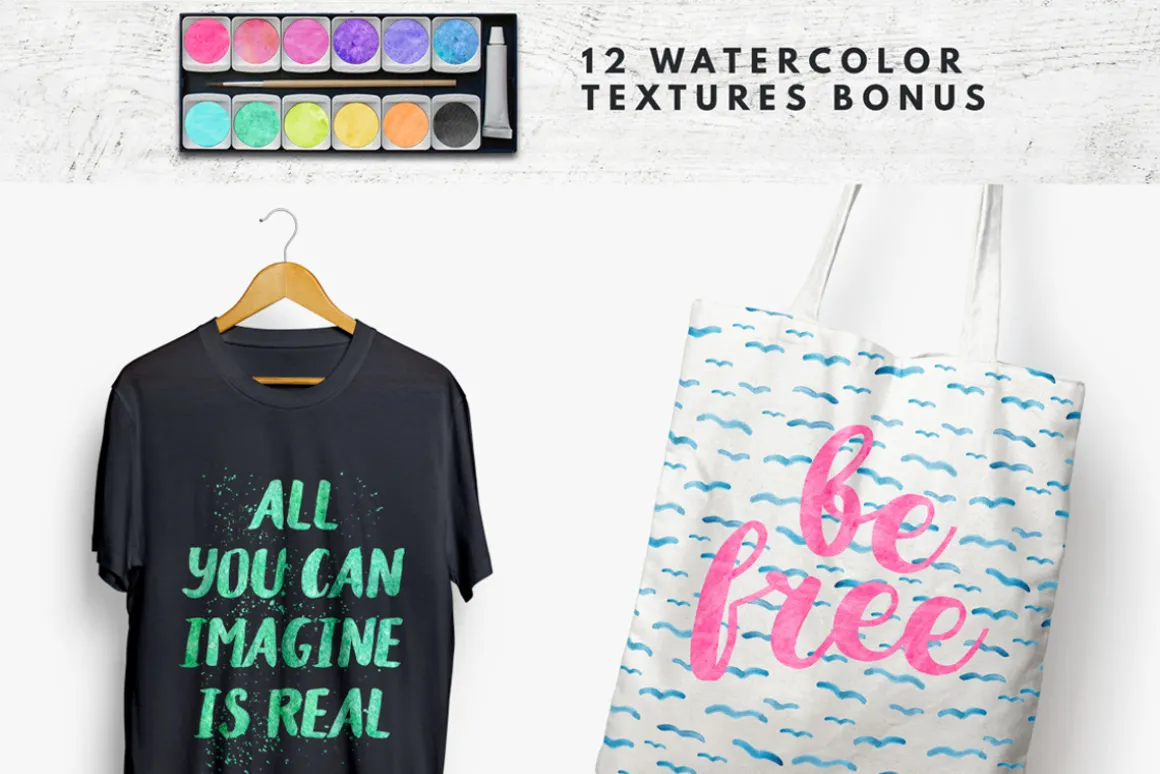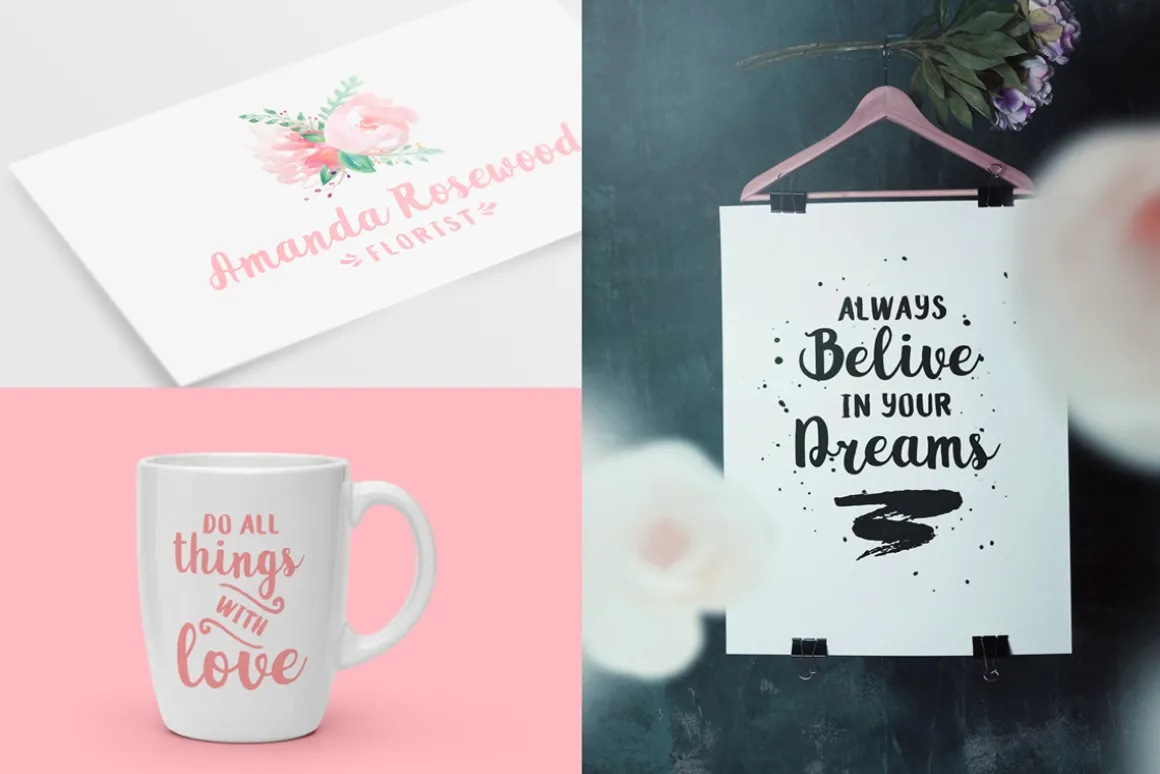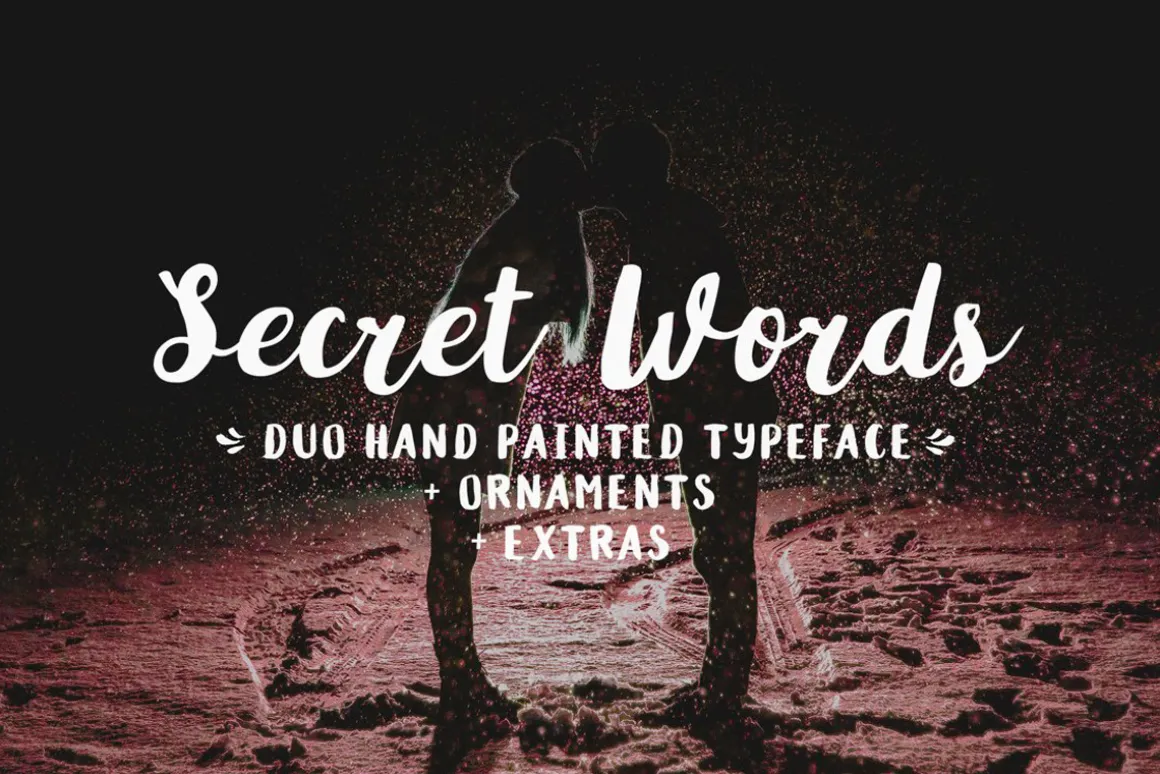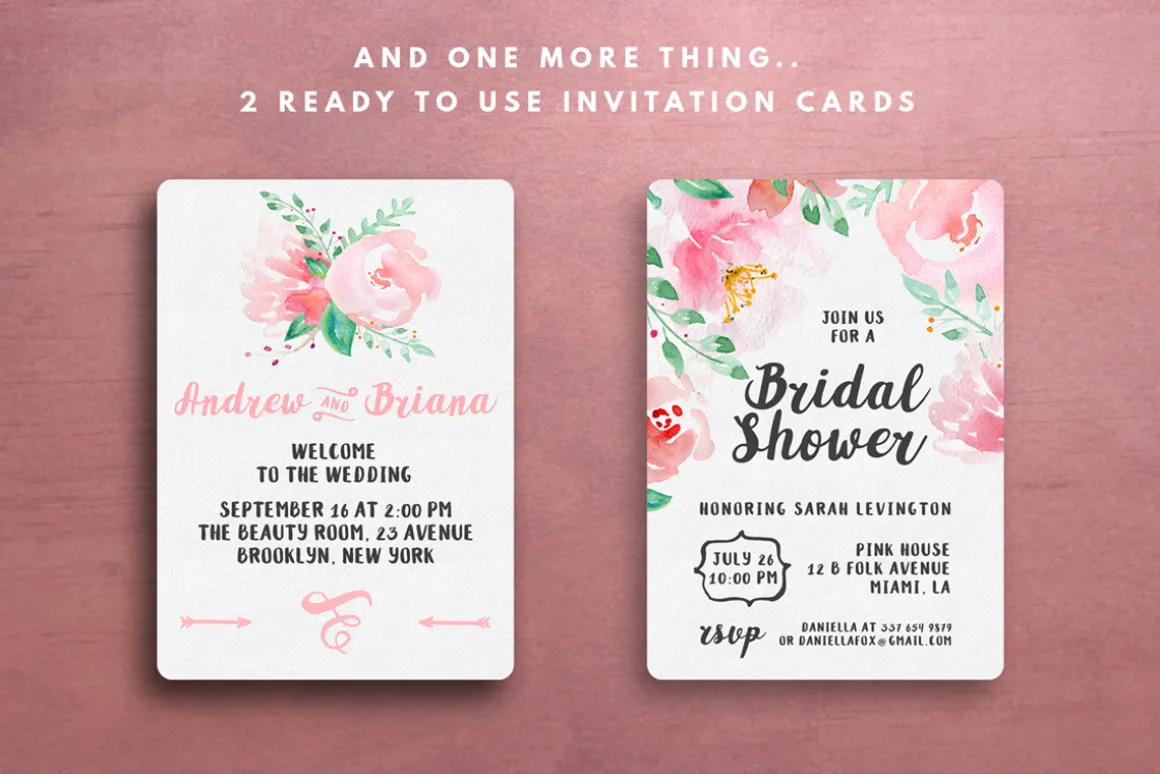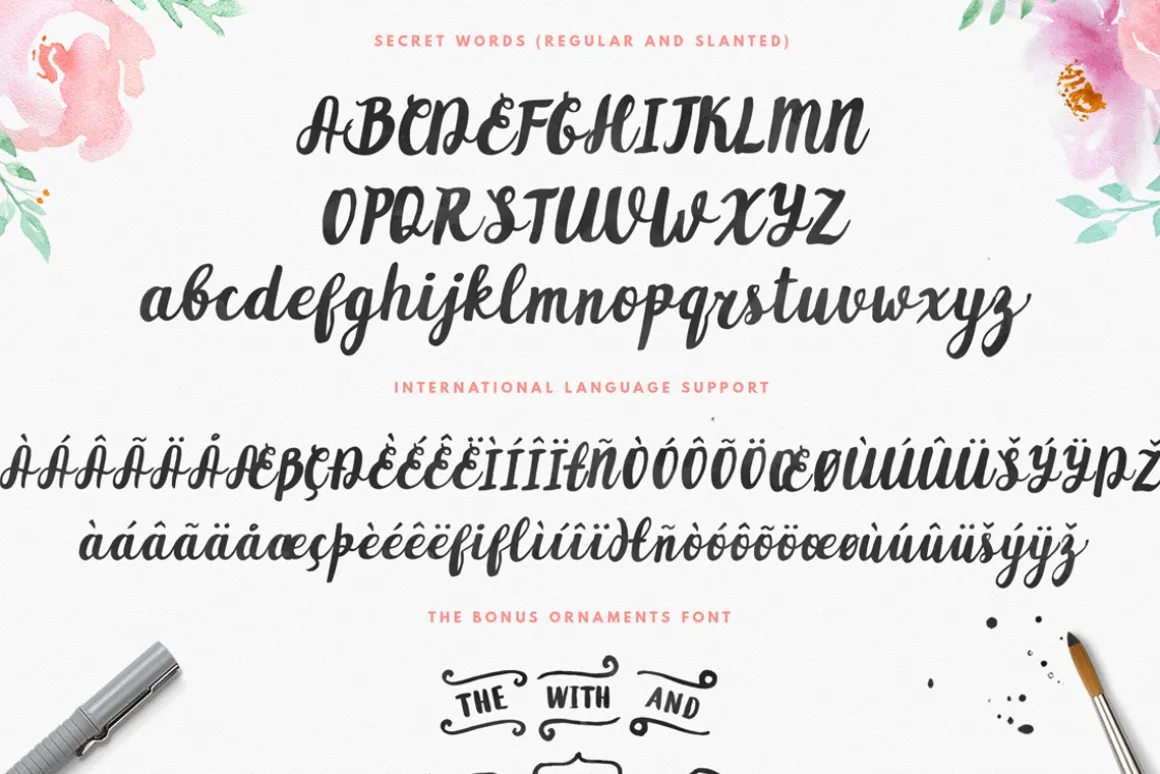
Introducing Secret Words Font Duo – a hand brushed typeface, with a beautiful natural movement. So pretty on branding materials, blog headers, business cards, for wedding invitations, greeting cards, watercolor based design and more! It has a perfectly paired complimentary Secret Words Display Font, and Secret Words Extras – a cute handy set of bonus ornaments. Secret Words Script and complimentary Secret Words Fonts Family works in harmony with each other to create awesome and unique typographical design.